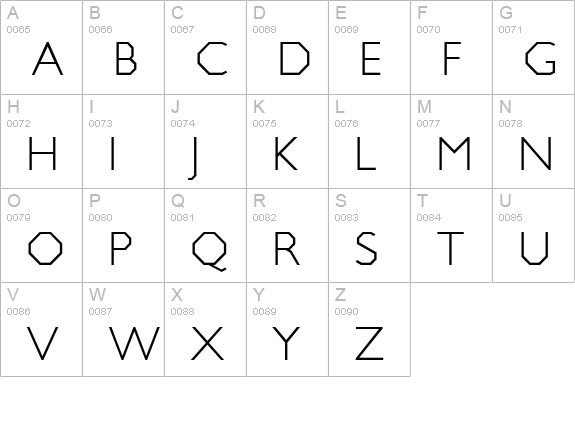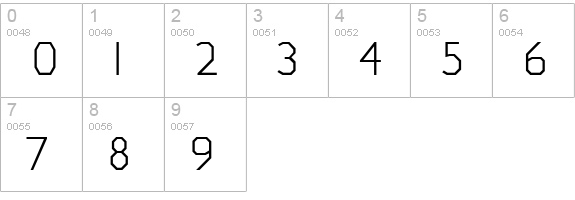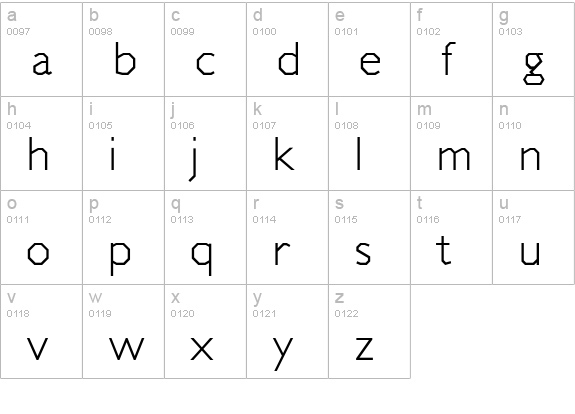
Jillican Light is a refined, elegant variant in the Jillican typeface family \xE2\x80\x94 well suited to elegant body text, refined sub-headings, and luxury branding.
Jillican Light font is a modern and elegant typeface that exudes sophistication and style. Its sleek lines and subtle curves make it perfect for a wide range of design projects, from branding to editorial layouts. The light weight of this font adds a touch of delicacy and refinement to any text. What's even better is that Jillican Light font is completely free to download at FontsMarket.com. This means you can easily access this beautiful font and use it in your personal and commercial projects without any cost. Don't miss out on this amazing opportunity to enhance your designs with the timeless charm of Jillican Light font. Download it now and elevate your creative work to new heights.